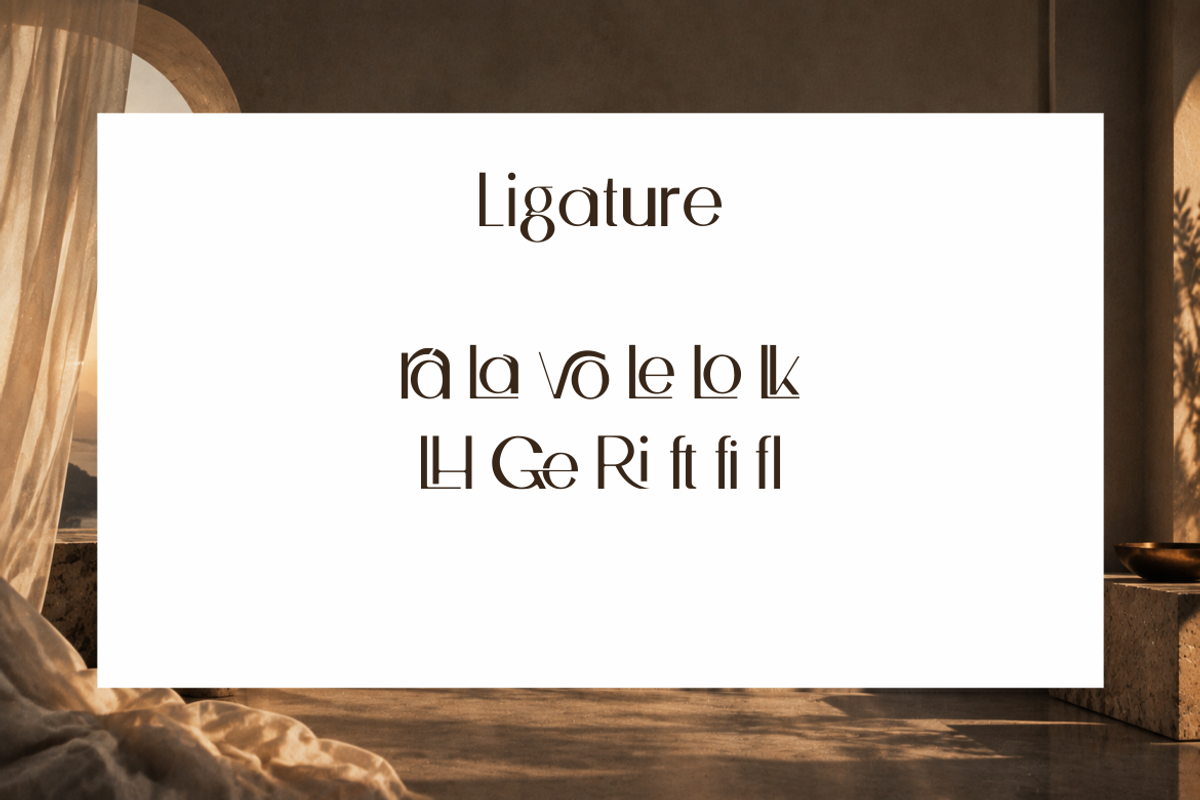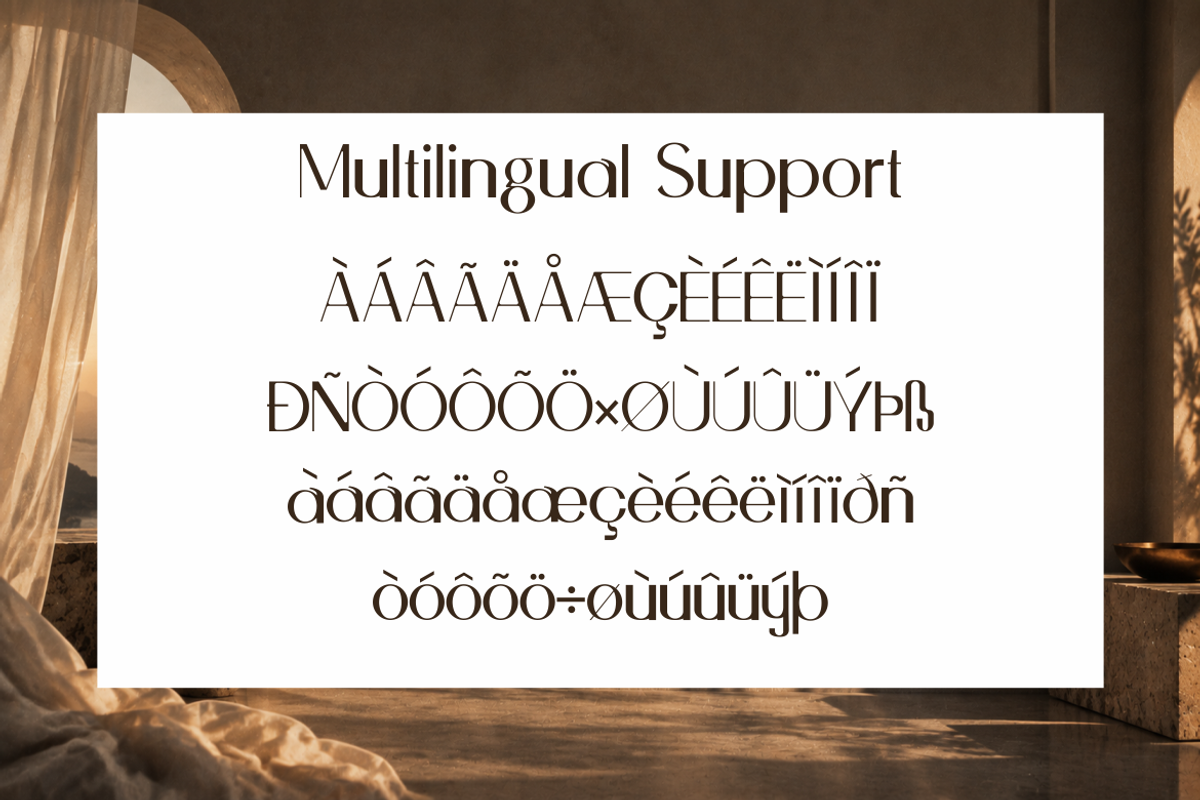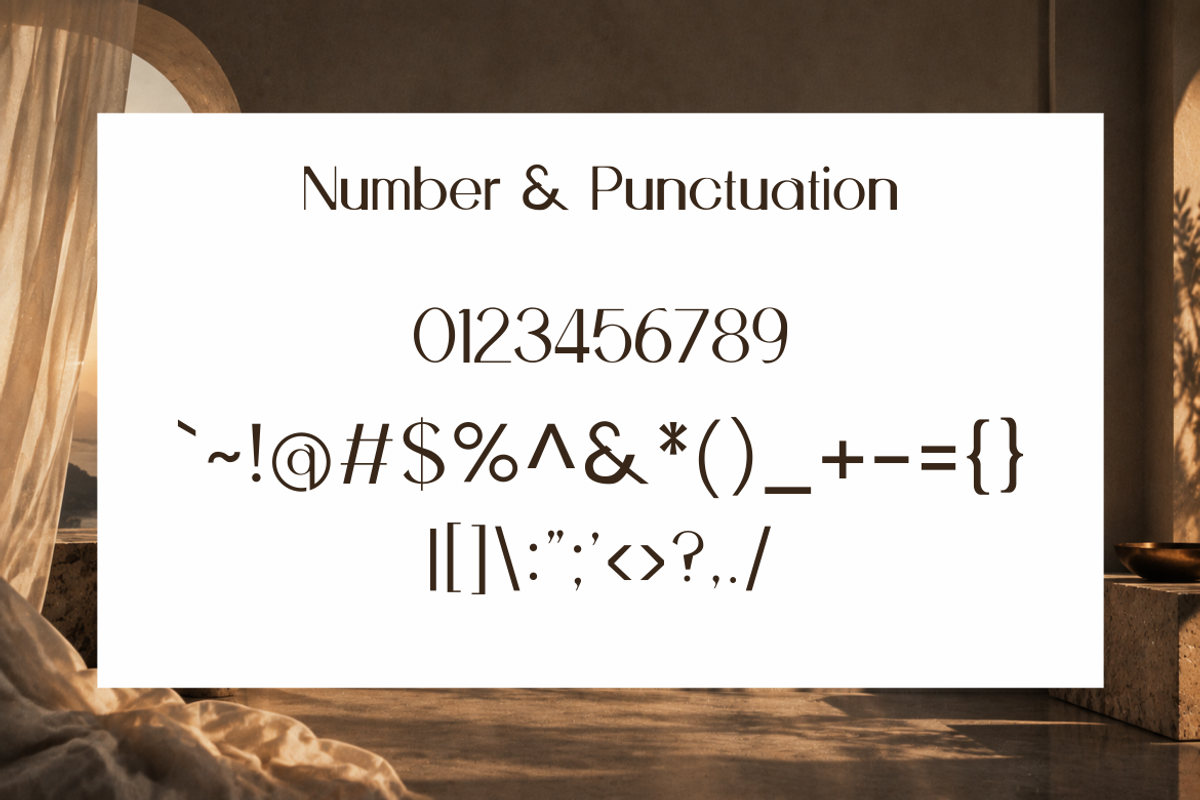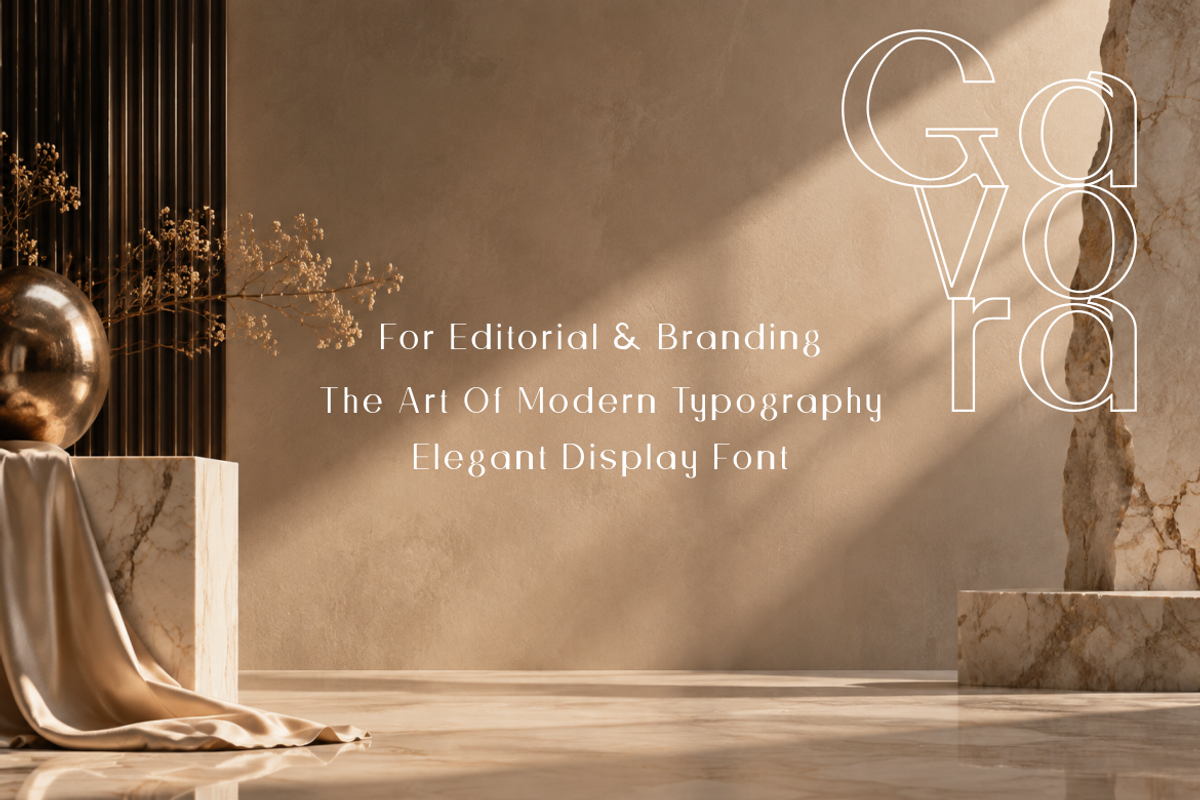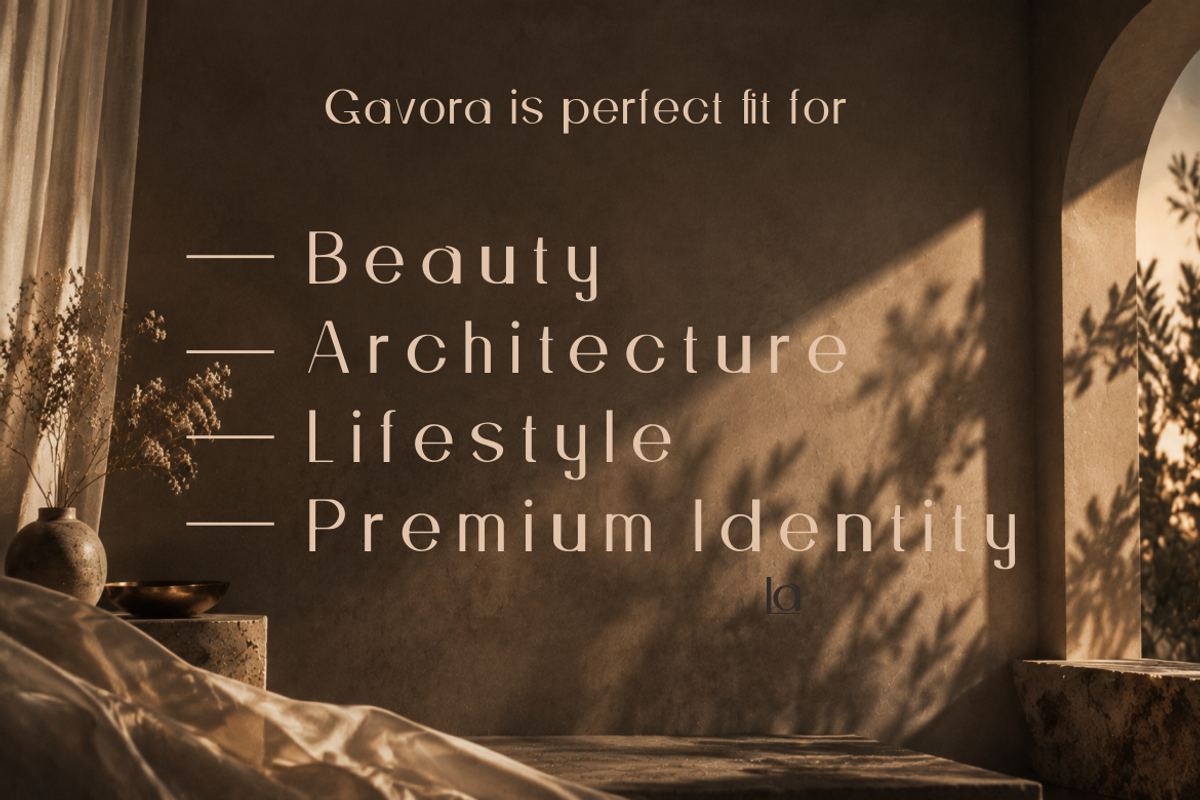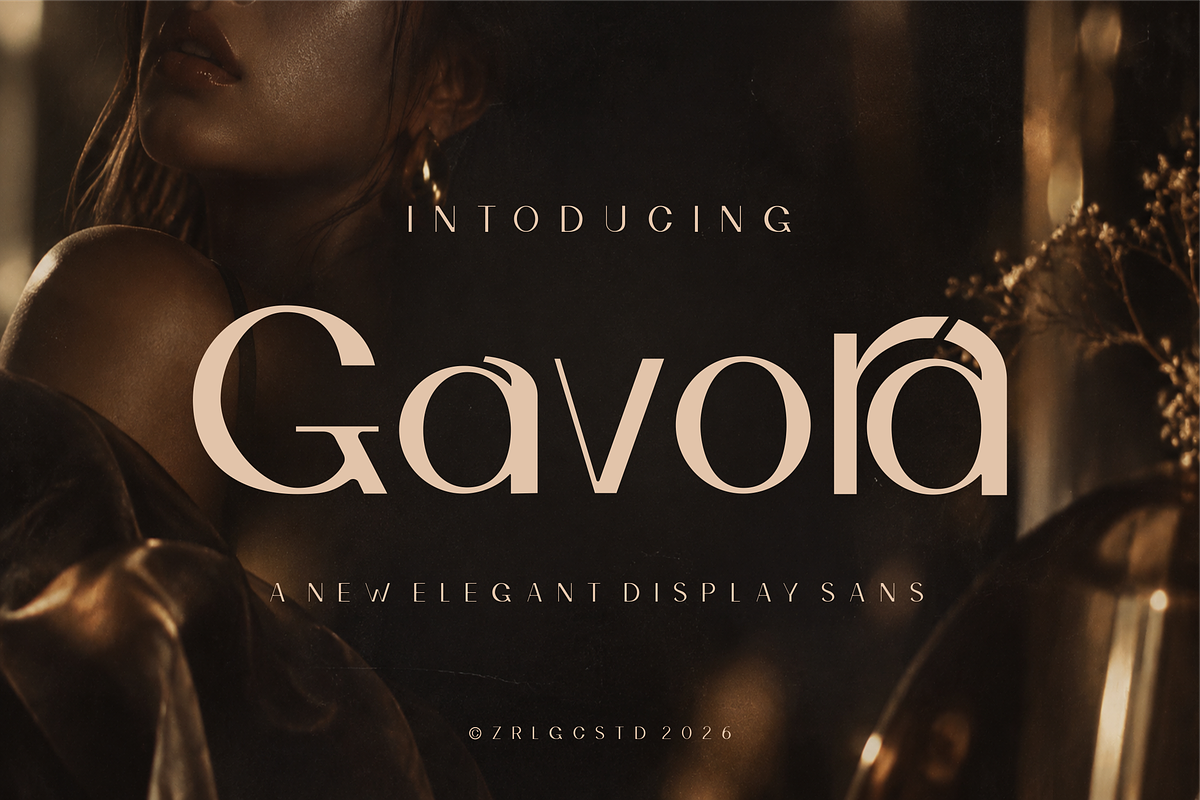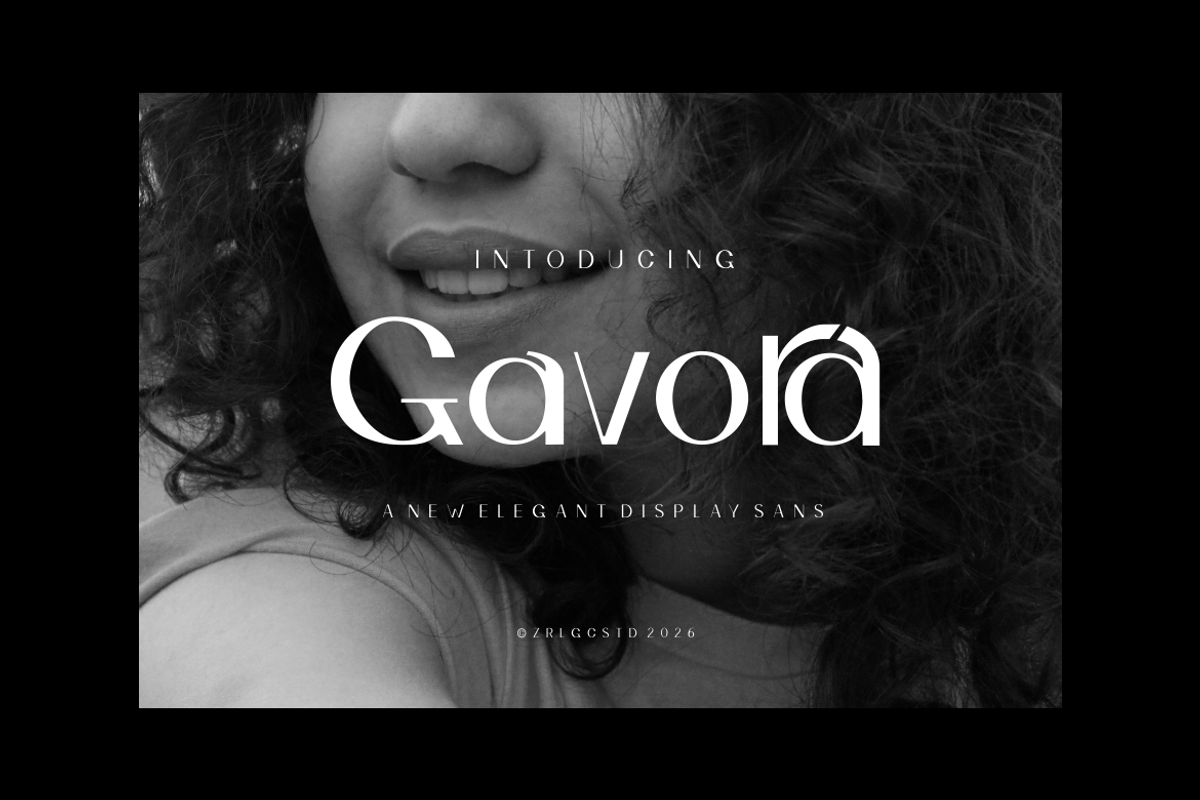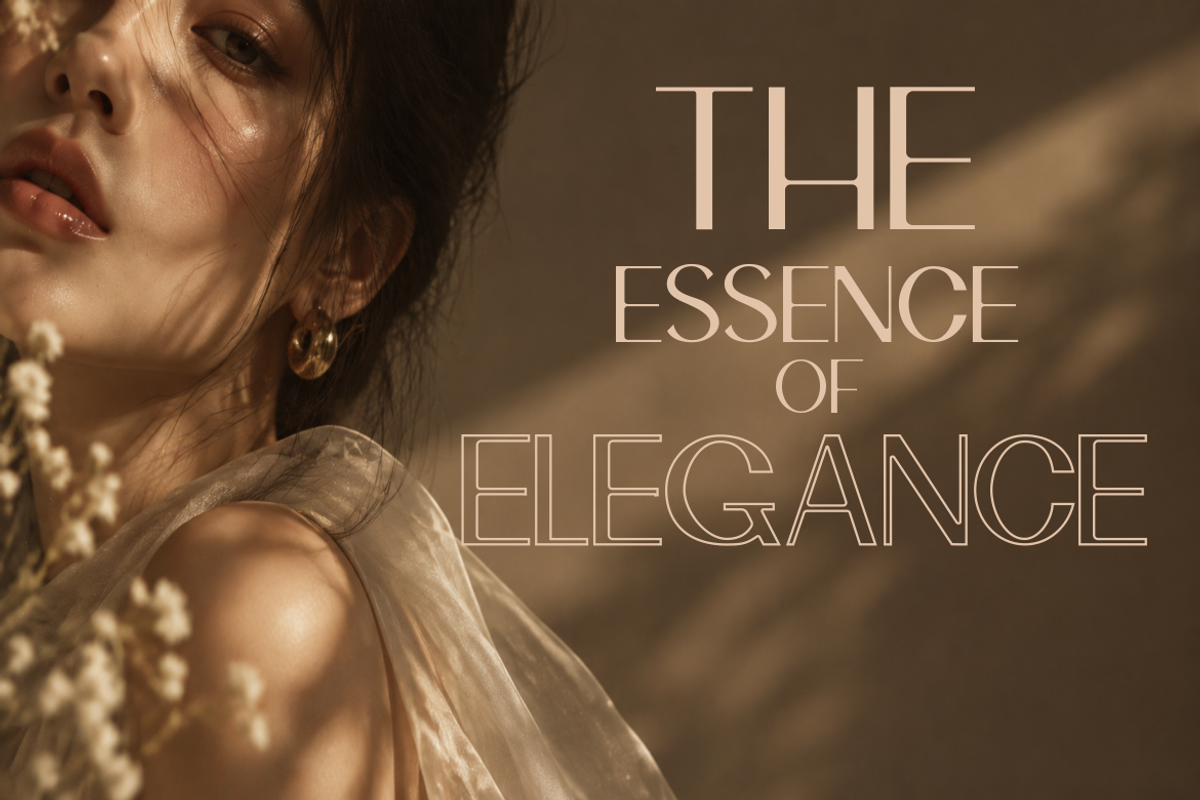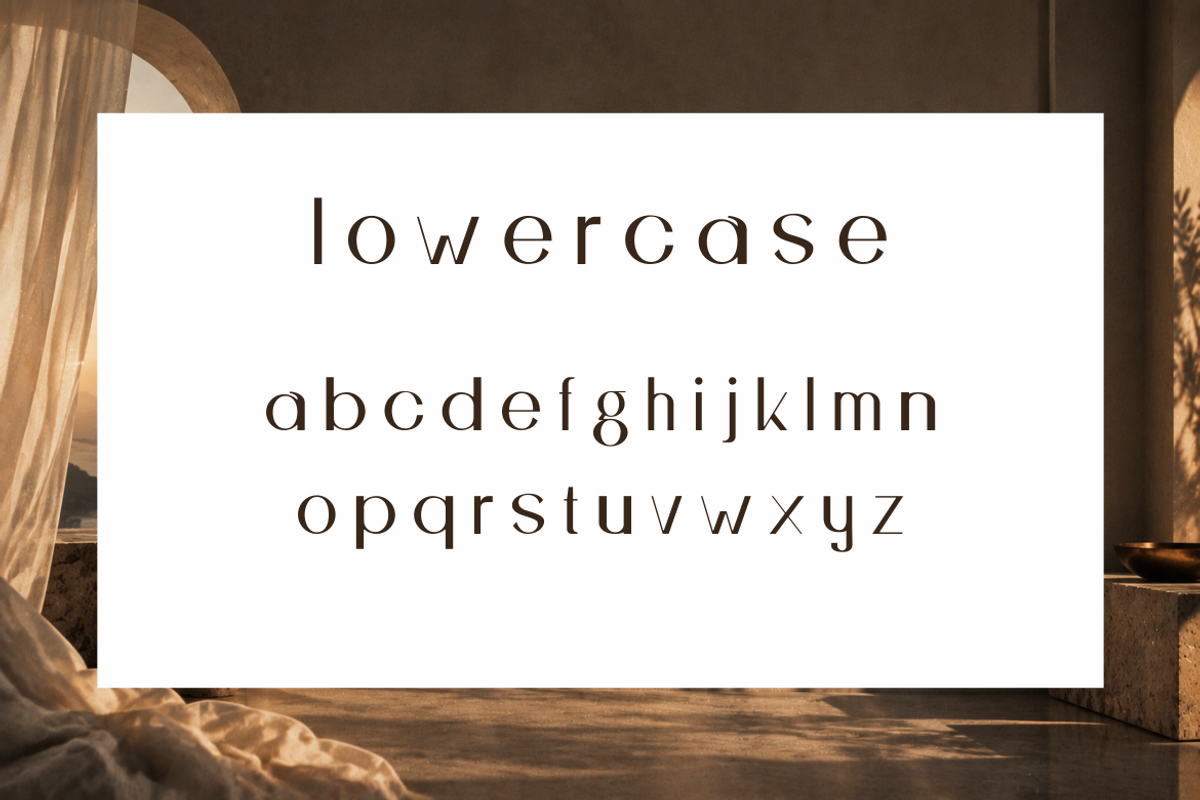
Gavora
Gavora Sans is a refined luxury display typeface designed to bring elegance, sophistication, and a timeless aesthetic to your creative projects. Inspired by modern fashion editorials, luxury branding, and contemporary visual identities, Gavora Sans features graceful letterforms, high-contrast details, and a sophisticated character that makes every word feel premium. Perfectly crafted for designers who need an elegant typeface for branding, logos, fashion magazines, beauty products, packaging, wedding invitations, editorial layouts, and luxury advertisements. With its distinctive appearance and stylish proportions, Gavora Sans adds a sense of exclusivity and modern elegance to both digital and print designs.
✓ Elegant luxury display style
✓ Uppercase & lowercase letters
✓ Numbers & punctuation
✓ Multilingual support
✓ Perfect for headlines and branding
✓ Ideal for fashion, beauty, editorial, and luxury projects
Perfect For • Luxury branding • Fashion magazines • Beauty & cosmetic packaging • Logo design • Wedding stationery • Editorial design • Product packaging • Social media graphics • Website headers • Premium advertisements